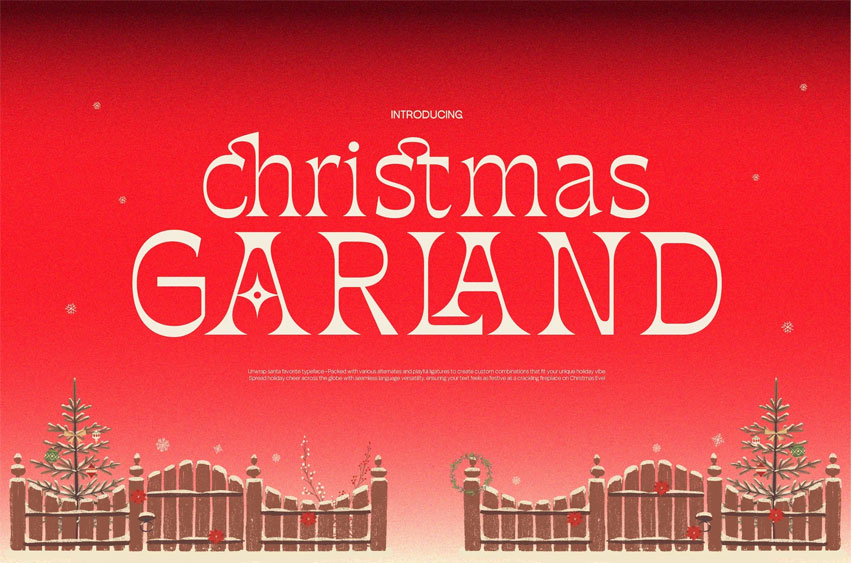
Christmas Garland Font
Christmas Garland Font Step into the holiday spirit with Christmas Garland, a whimsical and festive typeface designed to capture the magic of the season. Perfect for adding a touch of charm to your Christmas projects, this font embodies the warmth and joy of the holidays with its playful yet elegant design.
Christmas Garland exudes a vintage-inspired charm, adorned with decorative swirls, unique ligatures, and alternating letterforms that bring a sense of nostalgia. Its delicate yet bold serif style makes it an ideal choice for creating a festive mood, whether for branding, seasonal campaigns, or personal projects.
What sets Christmas Garland apart is its ability to combine intricate design with versatility. Packed with alternates and ligatures, the font allows endless creative possibilities, making it suitable for everything from gift wrapping to holiday event invitations. Its decorative flair brings sophistication and joy to every letter, leaving a lasting impression.
Whether you’re crafting a cozy holiday card, a festive party invitation, or branding your seasonal campaign, Christmas Garland brings the charm and elegance you need to make your designs unforgettable. Wrap up your holiday creations with the perfect typeface and let the spirit of Christmas shine through every letter.
• Uppercase & lowercase
• Numbers and punctuation
• Alternates and Ligatures: Create unique, custom combinations for your designs.
• Swashes and Ornaments: Add playful flourishes for extra holiday magic.
• Versatile Applications: Works beautifully for posters, cards, branding, and more.
• Nostalgic Vibe: A blend of vintage and modern aesthetics, perfect for the holidays.
• Multi-language Support: Spread holiday cheer worldwide with seamless versatility.